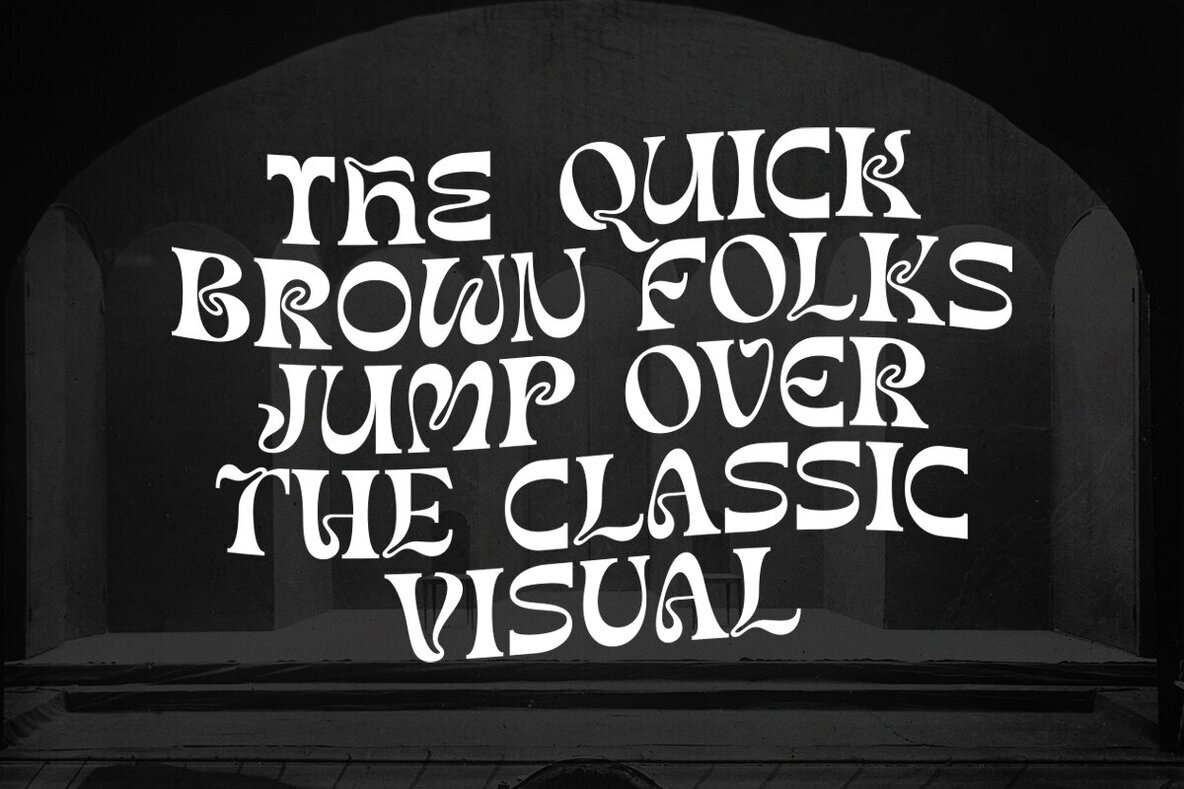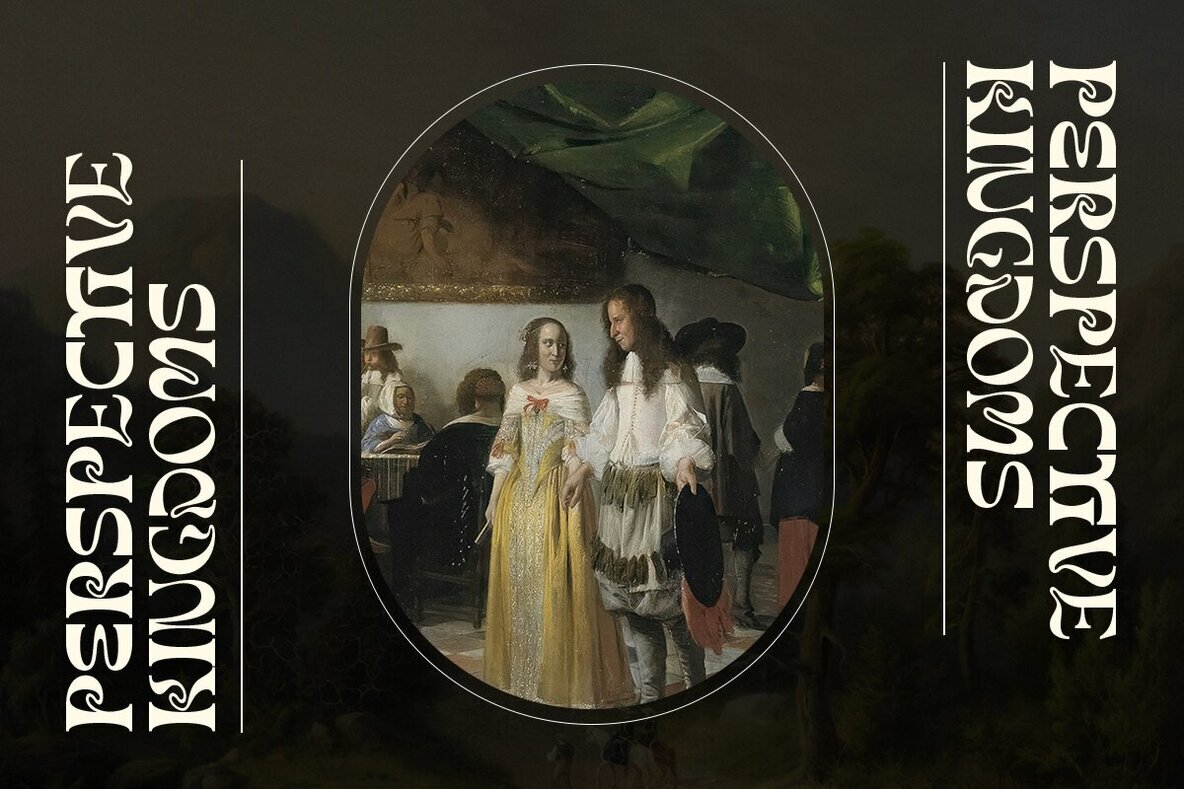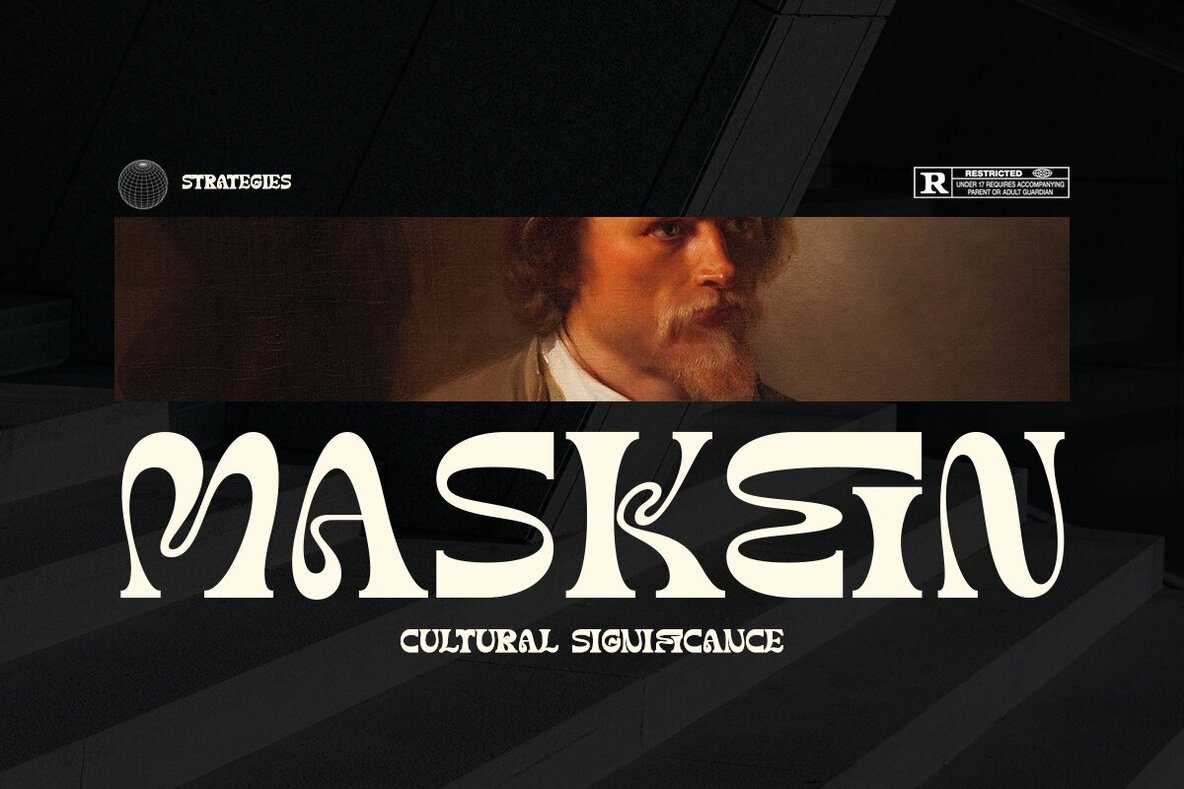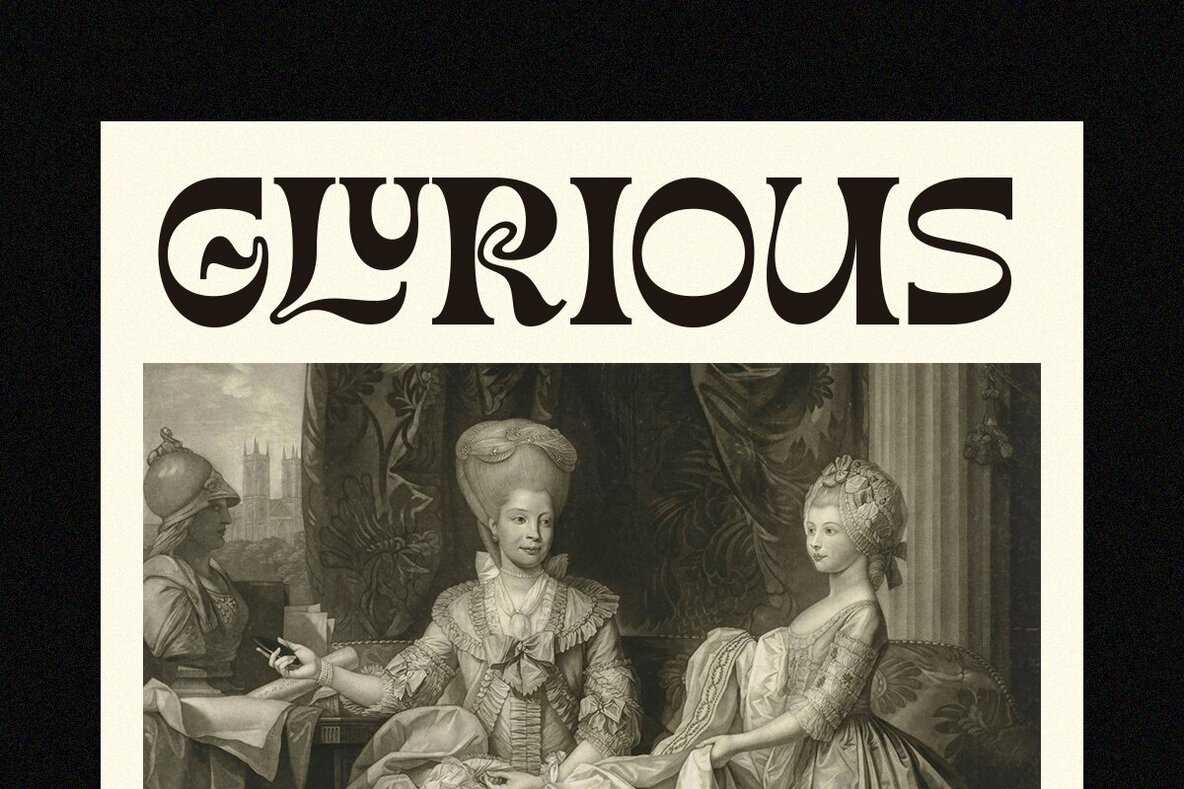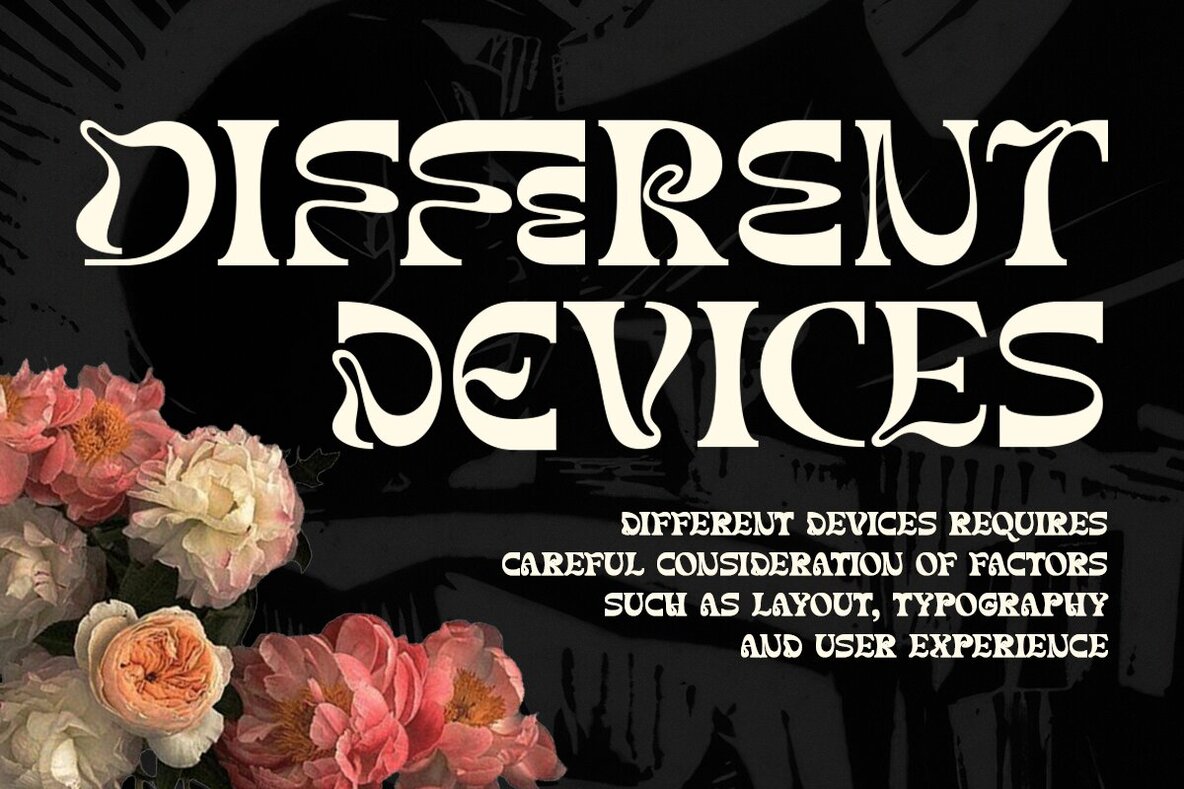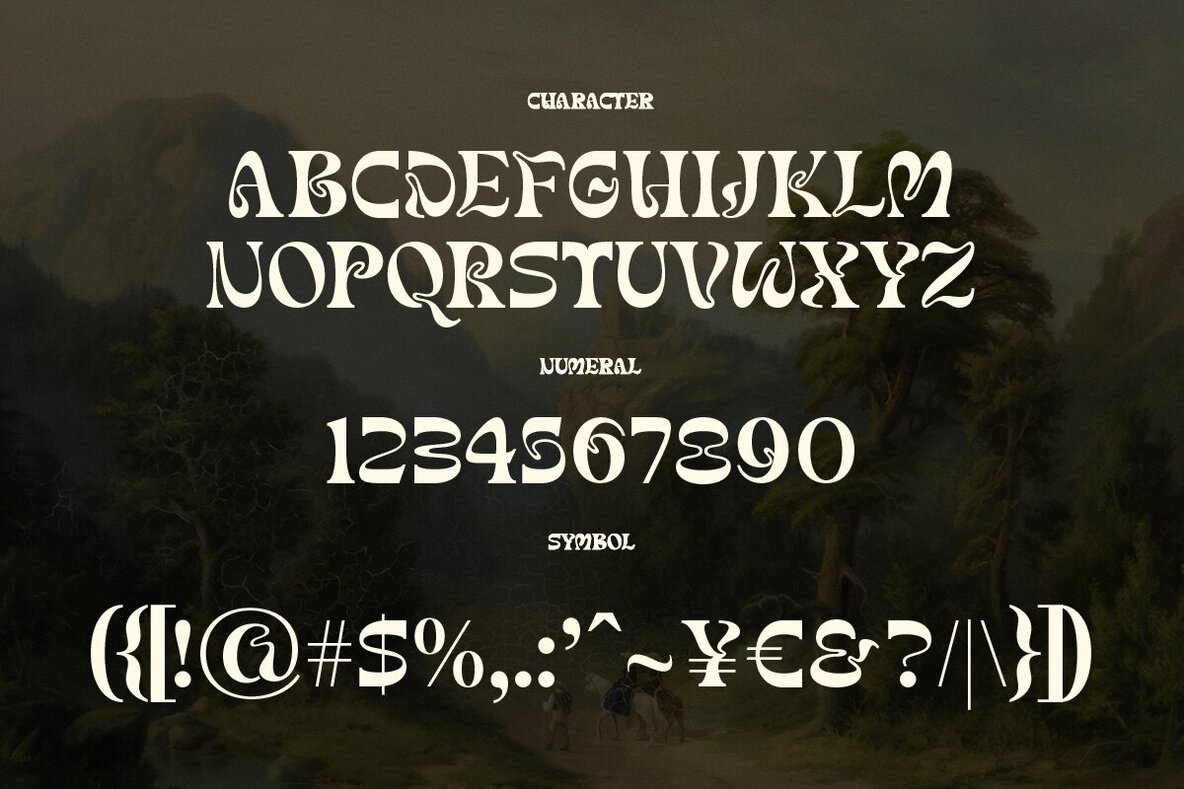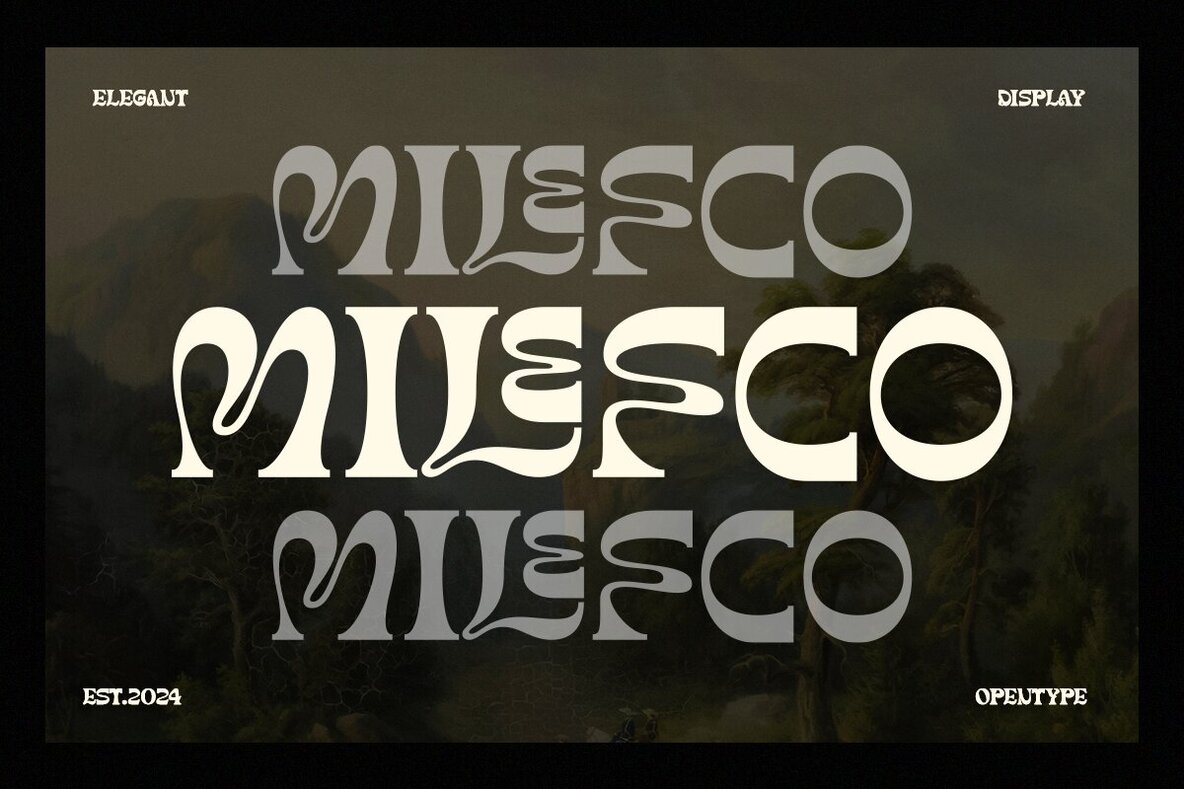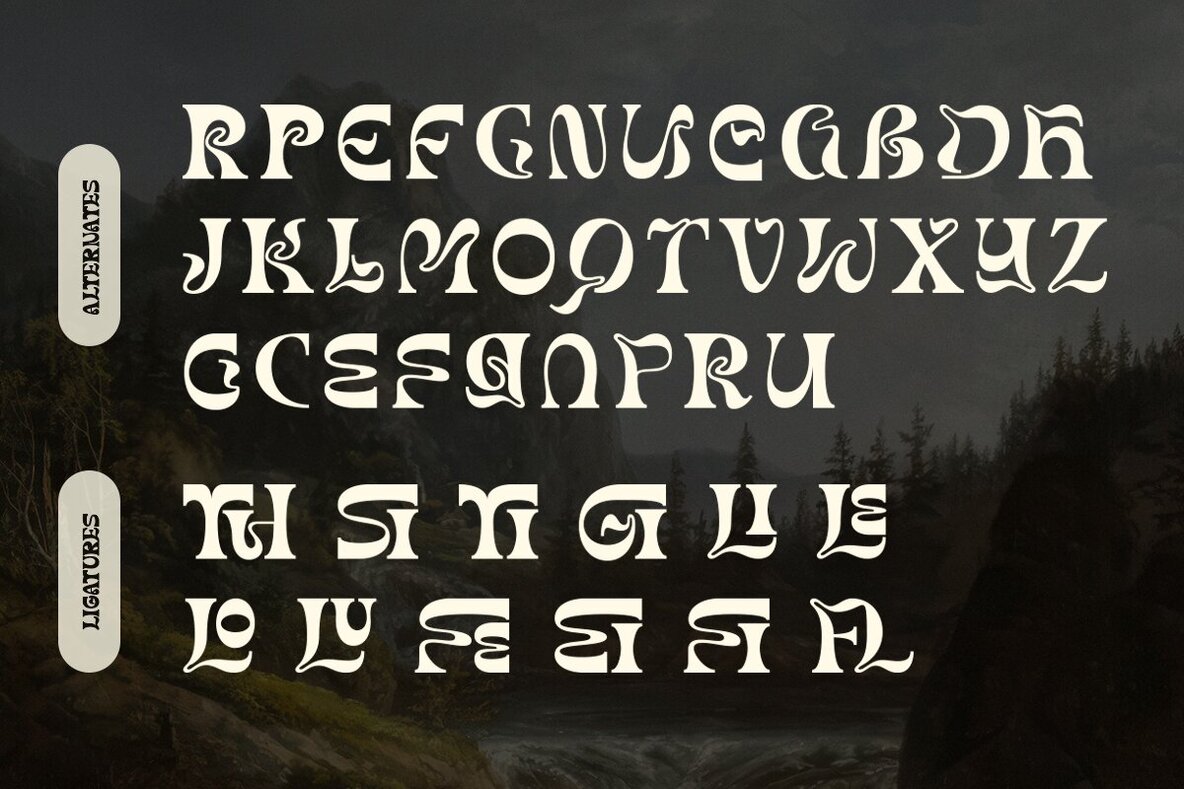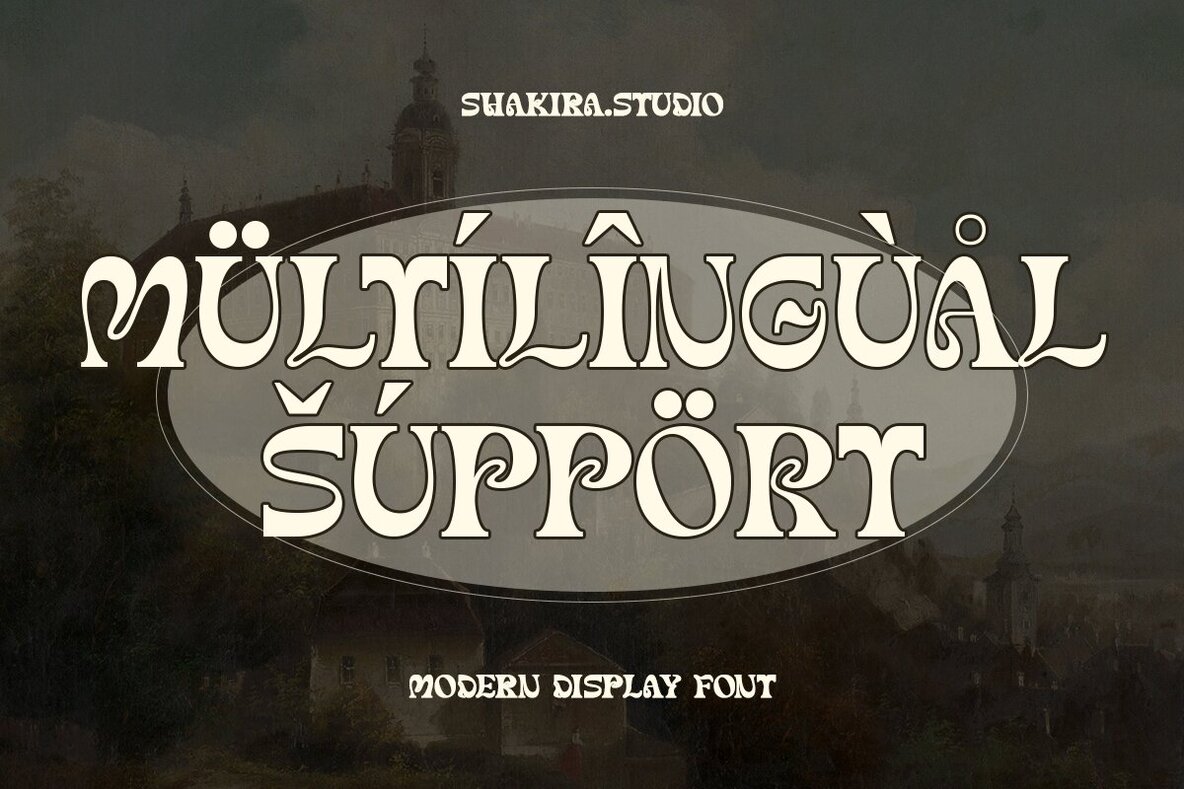
Siofeca Martis Font
Siofeca Martis Regular
Siofeca Martis is not your typical serif font; it is a bold statement in the world of typography. With its psychedelic flair and striking display, Siofeca Martis embodies the essence of modern serif fonts and typography trends. Designed for those seeking to push the limits of traditional serif design, Siofeca Martis adds whimsy and intrigue to any project. Its unique characters and vibrant display are perfect for logos, posters, album covers, and more. Siofeca Martis supports multiple languages including Afrikaans, Albanian, Catalan, Croatian, Czech, Danish, Dutch, English, Estonian, Finnish, French, German, Hungarian, Icelandic, Italian, Lithuanian, Maltese, Norwegian, Polish, Portuguese, Slovenian, Spanish, Swedish, Turkish, and Zulu. Stay updated with more of our work by following our shop. Thank you!Siofeca Martis: A Psychedelic Serif Display Font
Unleash Creative Boundaries
Multilingual Support